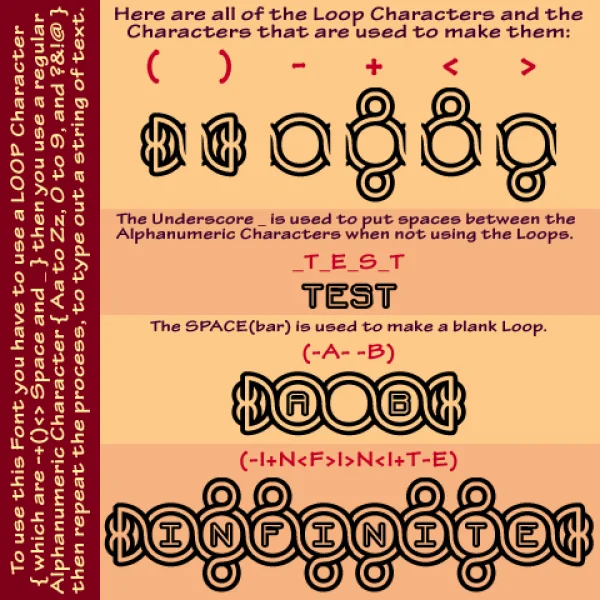
HERE'S HOW TO USE THIS FONT
To use this Font you have to use a LOOP Character
{ which are -+() SPACE and _ }
then you use a regular Alphanumeric Character
{ Aa to Zz, 0 to 9, and ?&!@ }
then repeat the process, to type out a string of text.
Here's an example: (-I+NIN is the same as the single Loop but it also has a small loop on the bottom of it.
SPACE the Space(bar) is used to make a Blank Loop.
{ For example (-A- -Z) would make A in a loop, a Blank loop, then Z in a loop }.
_ (underscore) is only used for when you just want to use the Alphanumeric Characters and NO Loops. { For Example _T_e_s_t }. If you just use Alphanumeric Characters, the Characters will just overlap each other.